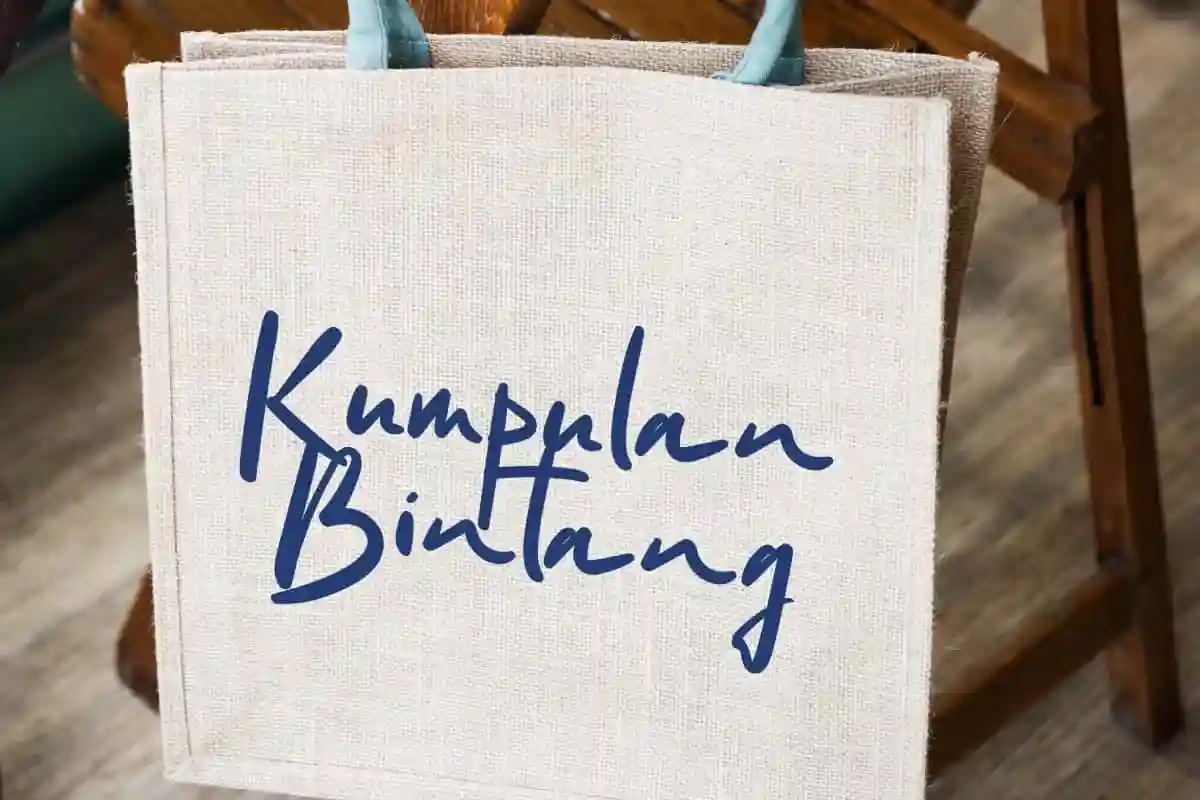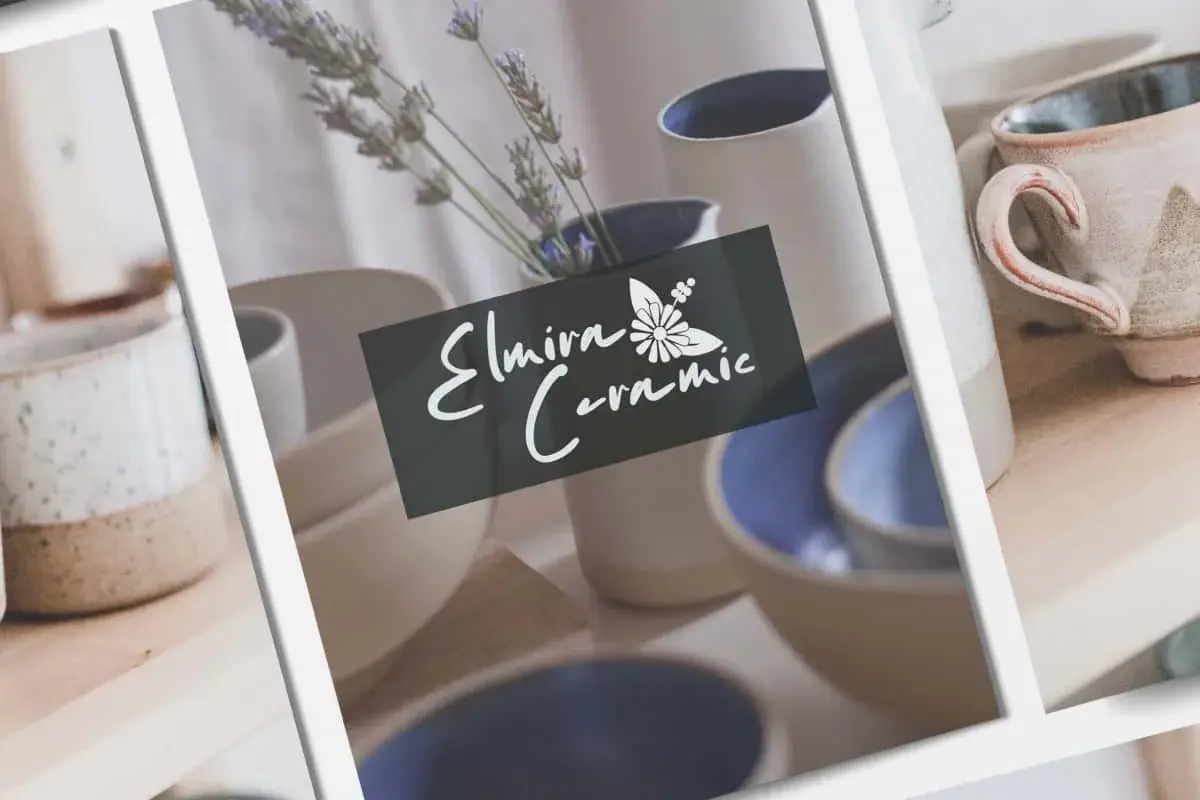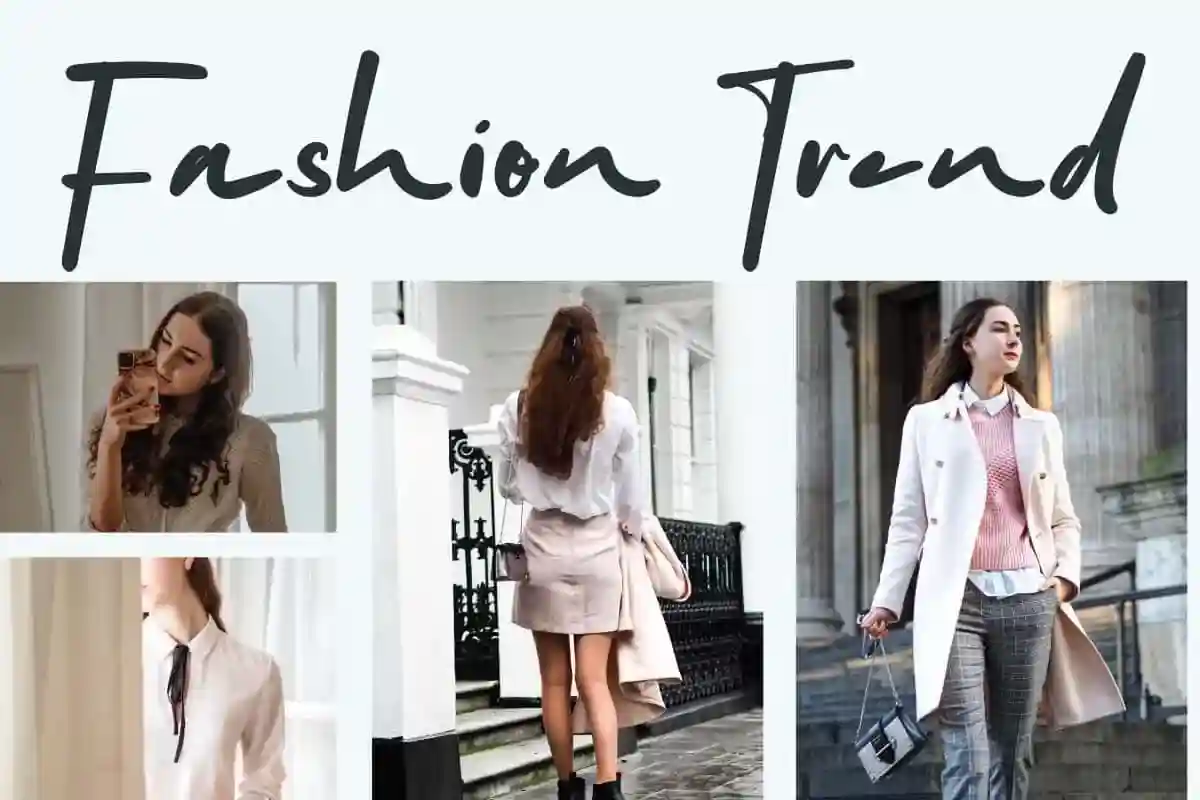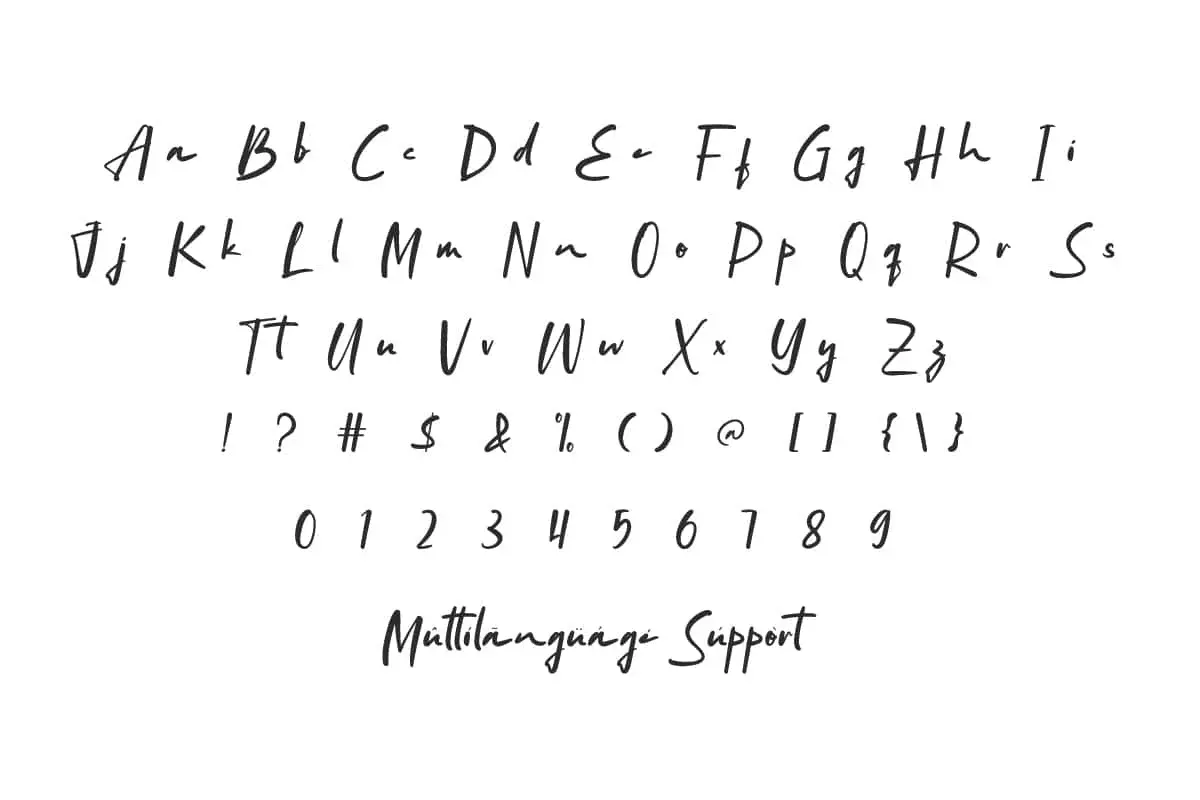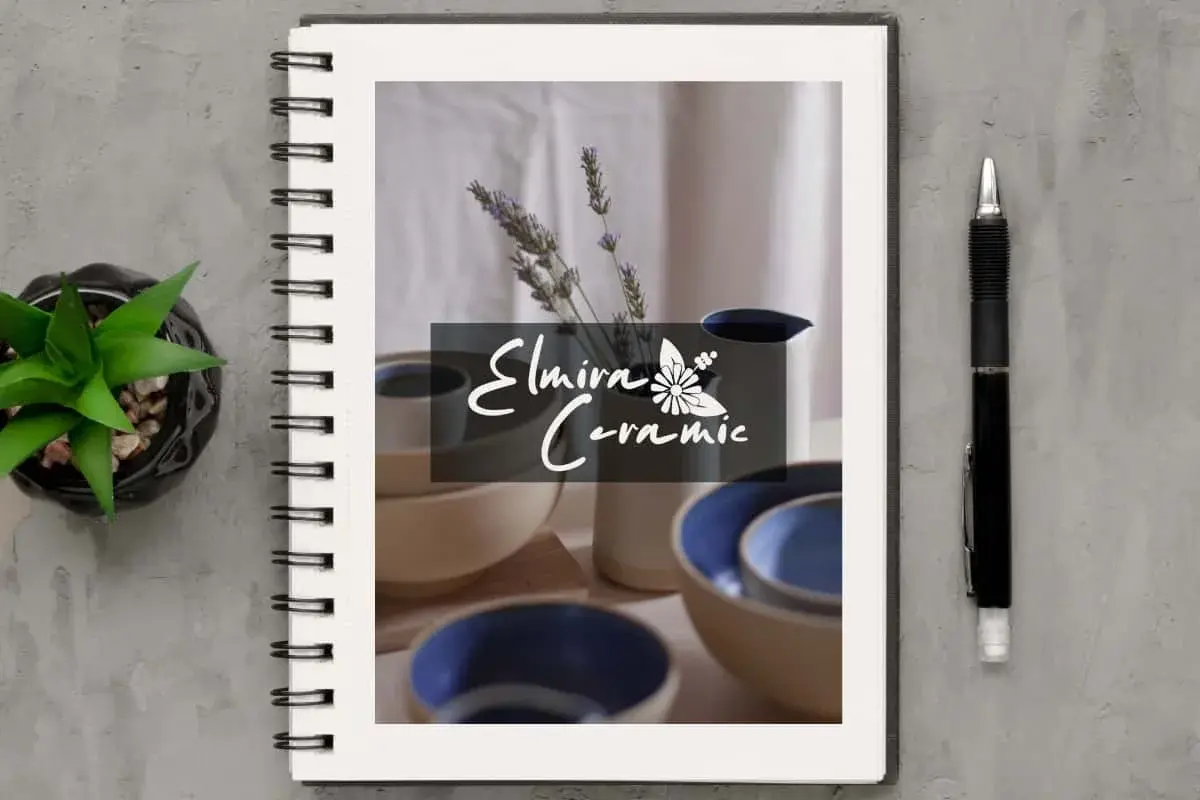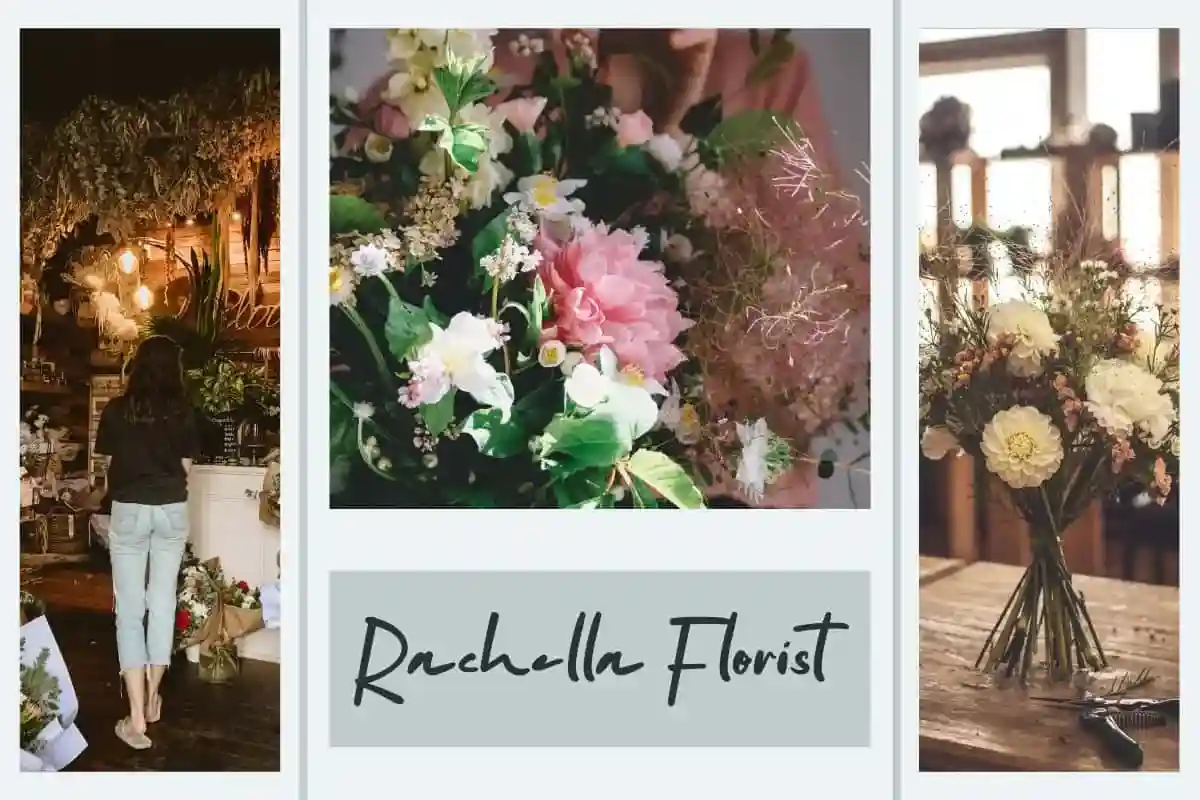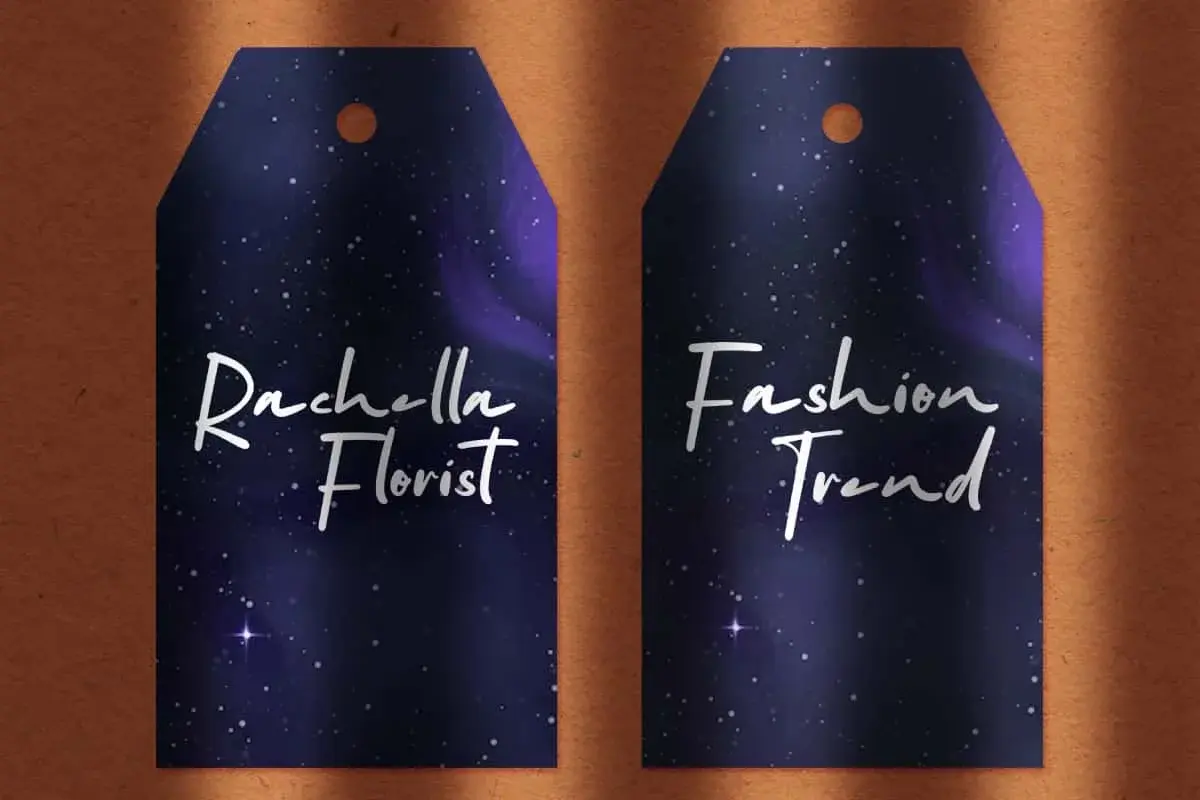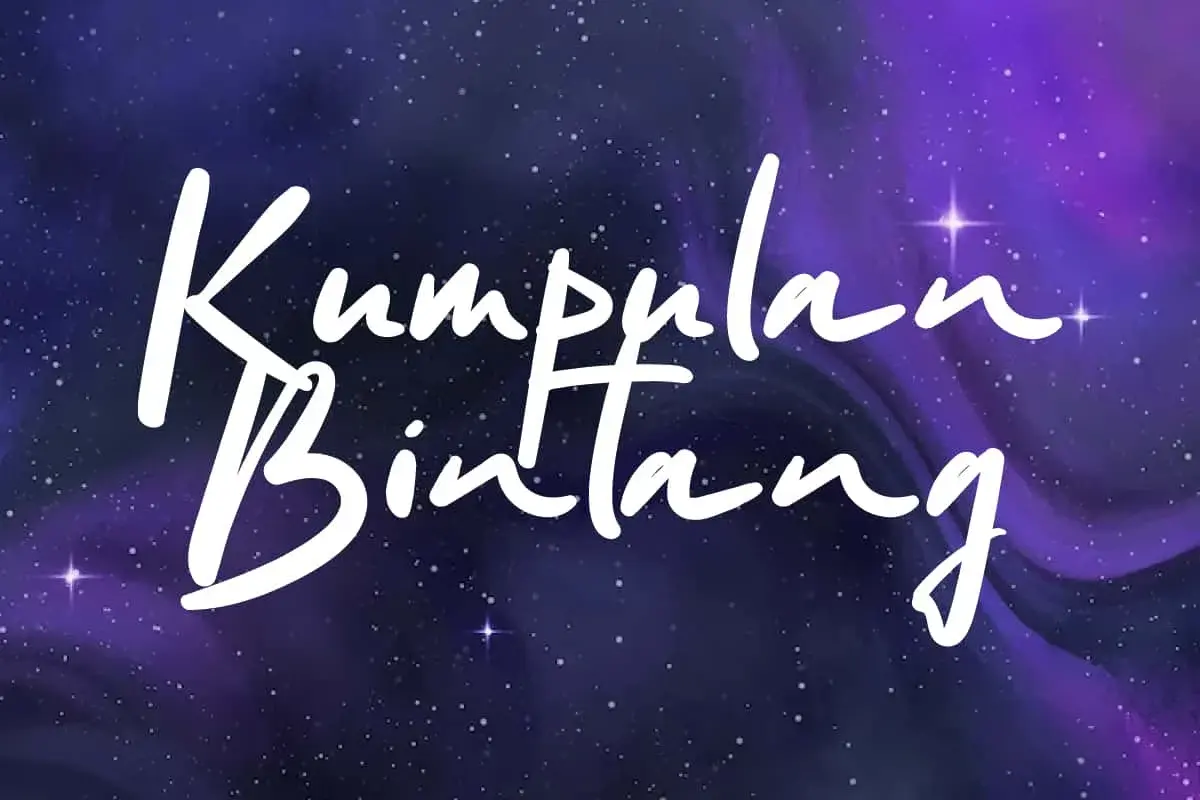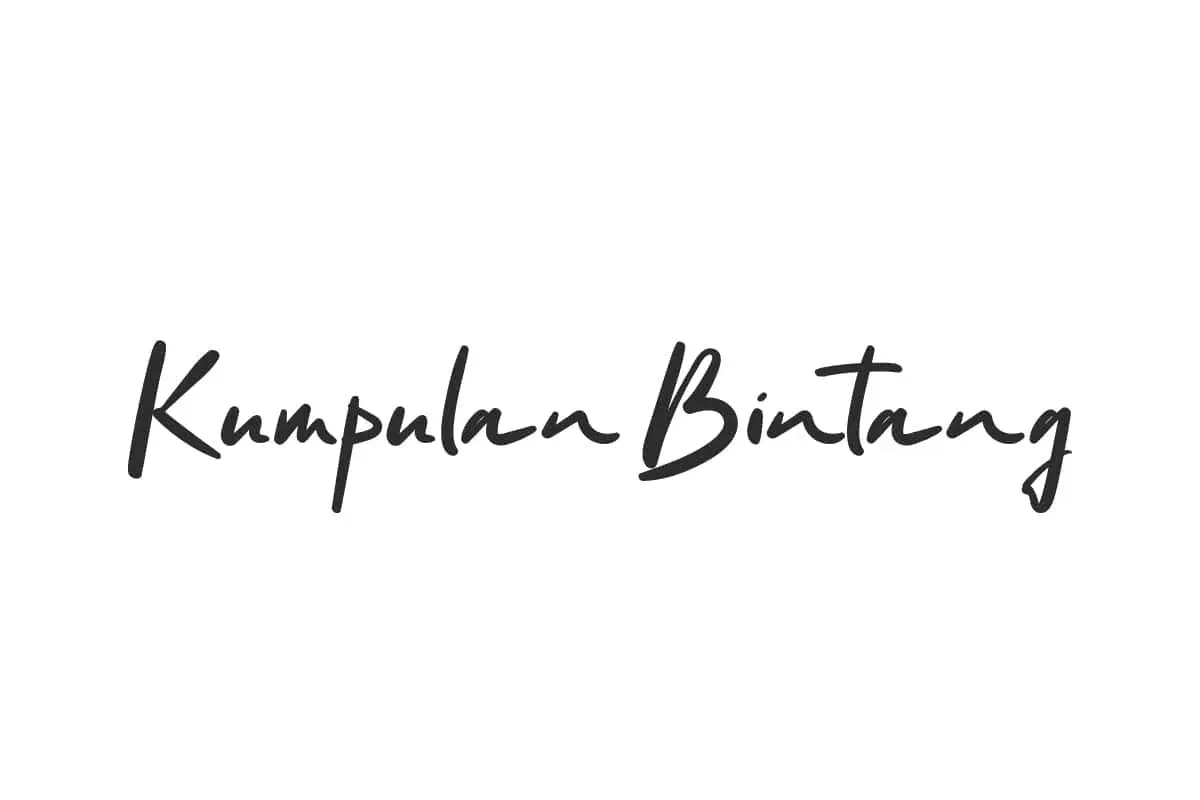
Kumpulan Bintang Font is a beautiful bold casual signature handwriting font of a cool and sophisticated marker typeface with a natural feel and easy signature vibe.
Kumpulan Bintang Font is a bold casual signature handwriting font of a cool and sophisticated marker typeface with an organic feel and easy signature vibe. Perfect for banners, brand logo, covers, fabric screen printing, greeting cards, headers, labels, modern websites, packaging, stickers, titles, watermarks logos, wedding stationery, and others.
Kumpulan Bintang Font includes a complete set of Basic Uppercase and Lowercase Characters, Numbers, Punctuation Marks and Symbols. Presents the natural elegance of perfectly crafted handwriting and is recommended for those of you who want to create any design with a realistic signature style. This font will work for accessories and gifts, apparel design, fashion, florist, house furniture, photographer, writers and more.